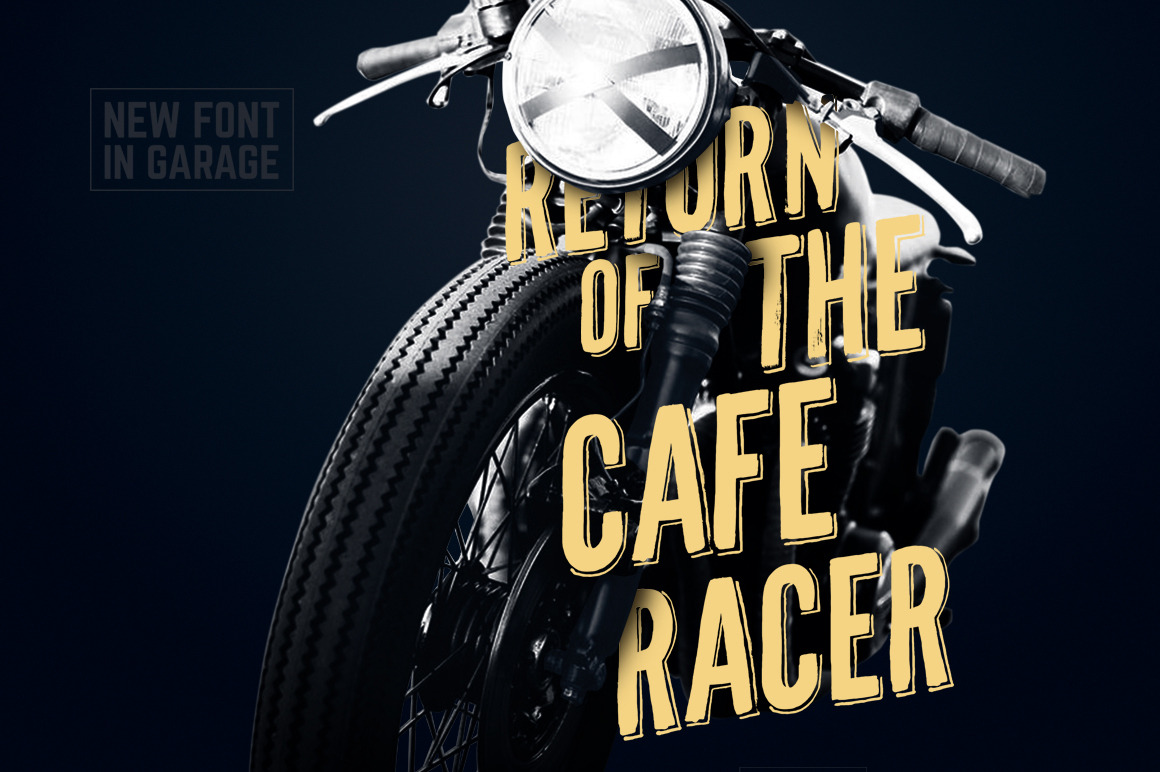
CafeRacer Typeface
With the new caferacer font every single word becomes magnificent. The irregular, hand painted style adds a natural touch to your design making it perfect for posters, t-shirts or packaging aiming for that retro-modern look.